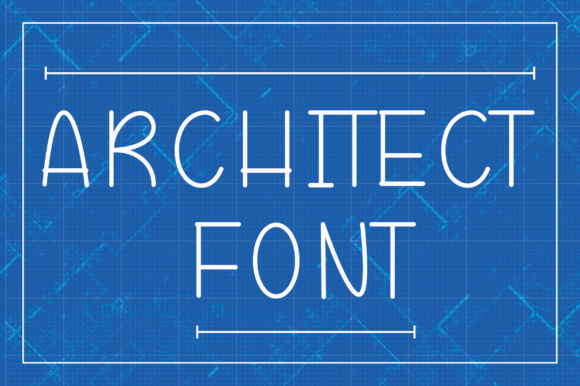
When the Perfect Font Strikes
Have you ever been in the middle of a creative project, and suddenly, the perfect font pops into your mind? It’s as if the entire design falls into place, and you can’t wait to bring it to life. For many designers, this moment is a game-changer. It’s the difference between a good design and a great one.
One font that has been known to spark this creative moment is the Architect Font. This simple yet elegant sans-serif font is designed to be versatile and adaptable, making it the perfect choice for a wide range of projects. Whether you’re working on a logo, brochure, or website, the Architect Font can help elevate your design and make it stand out from the crowd.
Key Features of Architect Font
- Font Family: Architect Font is a sans-serif font family designed for professional and modern designs. It is available in 4 weights: Light, Regular, Medium, and Bold.
- Character Set: Architect Font includes a wide range of characters, including Latin, Cyrillic, and Greek alphabets, as well as punctuation marks and symbols.
- Unique Characteristics: Architect Font features a clean and modern design with a unique geometric shape, making it perfect for corporate identities, branding, and digital products.
Architect Font Review
Overall, Architect Font is a solid choice for typography in digital design, offering a mix of modern and elegant features that can elevate a project’s aesthetic. Here are some of its strengths:
- ✨ High legibility: The font’s clean lines and open shapes make it easy to read, even at smaller font sizes.
- ✨ Professional look: Architect Font exudes a sense of sophistication and professionalism, making it suitable for business, tech, and creative industries.
- ✨ Customization options: The font comes with multiple weights and styles, allowing designers to fine-tune the look to suit their project’s needs.
- ⚠️ Limited language support: Architect Font may not be suitable for projects requiring extensive language support, as it’s primarily designed for Latin-based languages.
- ⚠️ May not be suitable for complex layouts: The font’s clean lines and minimal ornamentation may make it difficult to create complex, visually dense layouts.
Overall, Architect Font is a great choice for designers seeking a modern, professional look. While it may have some limitations, its strengths make it a solid addition to any design toolkit.
Tips for Getting the Most Out of Architect Font
Here are some tips for getting the most out of Architect Font:
- Use Architect Font for titles and headings to add a touch of sophistication.
- Pair Architect Font with other fonts to create a unique and eye-catching design.
Here are some common use cases for Architect Font:
- Corporate branding and identity
- Graphic design and visual communication
- Architecture and design projects
Didot Font
Didot is a classic serif font that is ideal for use in print materials such as magazines, newspapers, and books. It is characterized by its elegant and refined feel, making it perfect for luxury brands and high-end designs.
Compared to Architect Font, Didot has a more traditional and formal look, with a stronger emphasis on the vertical strokes of the letters. Architect Font, on the other hand, has a more modern and sleek feel, with a focus on clean lines and minimal ornamentation.